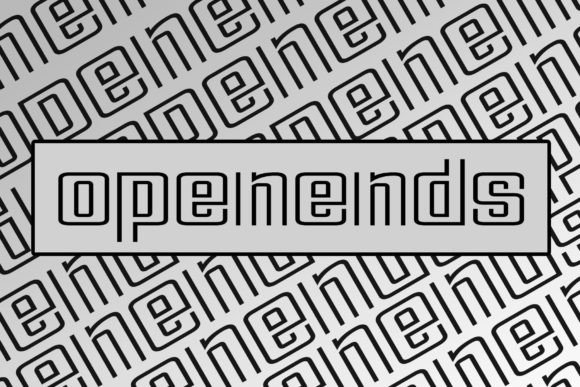
Open Ends: The Font of Infinite Possibilities
At the intersection of creativity and technology, where imagination knows no bounds, lies Open Ends, a groundbreaking display font family that will transform your designs into captivating visual masterpieces. Created by denestudios, this font family goes beyond the realm of ordinary, offering a refreshing blend of boldness and futuristic charm.
Prepare to elevate your designs to new heights, where every word carries weight and every letter dances with individuality. Open Ends is not just a font; it's an experience that will ignite your passion and fuel your creativity. Unleash your imagination and dive into a world where limits dissolve and possibilities unfold.
With Open Ends, you'll embark on a typographic journey like no other. Its bold and assertive character demands attention, while its meticulously crafted curves and sharp angles add a touch of sophistication and elegance. Whether you're a seasoned designer or just starting your creative journey, Open Ends will effortlessly elevate your projects and make your designs shine.
More than just a collection of letters, Open Ends is a gateway to limitless expression. Envision your words jumping off the page, captivating your audience with their unwavering confidence and distinct personality. Picture headlines that command attention, logos that exude authority, and branding that leaves a lasting impression. Open Ends will effortlessly elevate your designs, making them stand out from the crowd and leaving an enduring mark on your audience's minds.
But Open Ends is more than just a visually stunning font family. It's also incredibly versatile, adapting seamlessly to a wide range of projects. From bold headlines that demand attention to delicate letter tracing exercises, Open Ends effortlessly adapts to your creative vision.
Step into the future of design with Open Ends, a font family that pushes boundaries and embodies the spirit of innovation. Its futuristic aesthetic will set your designs apart, giving them an edge that resonates with modern audiences. Embrace the power of Open Ends and watch as your designs transform into works of art that captivate and inspire.
So, whether you're a seasoned designer seeking to expand your typographic horizons or a creative enthusiast seeking a font that will ignite your imagination, Open Ends is the perfect choice. Discover the endless possibilities that await you and embark on a design journey unlike any other.